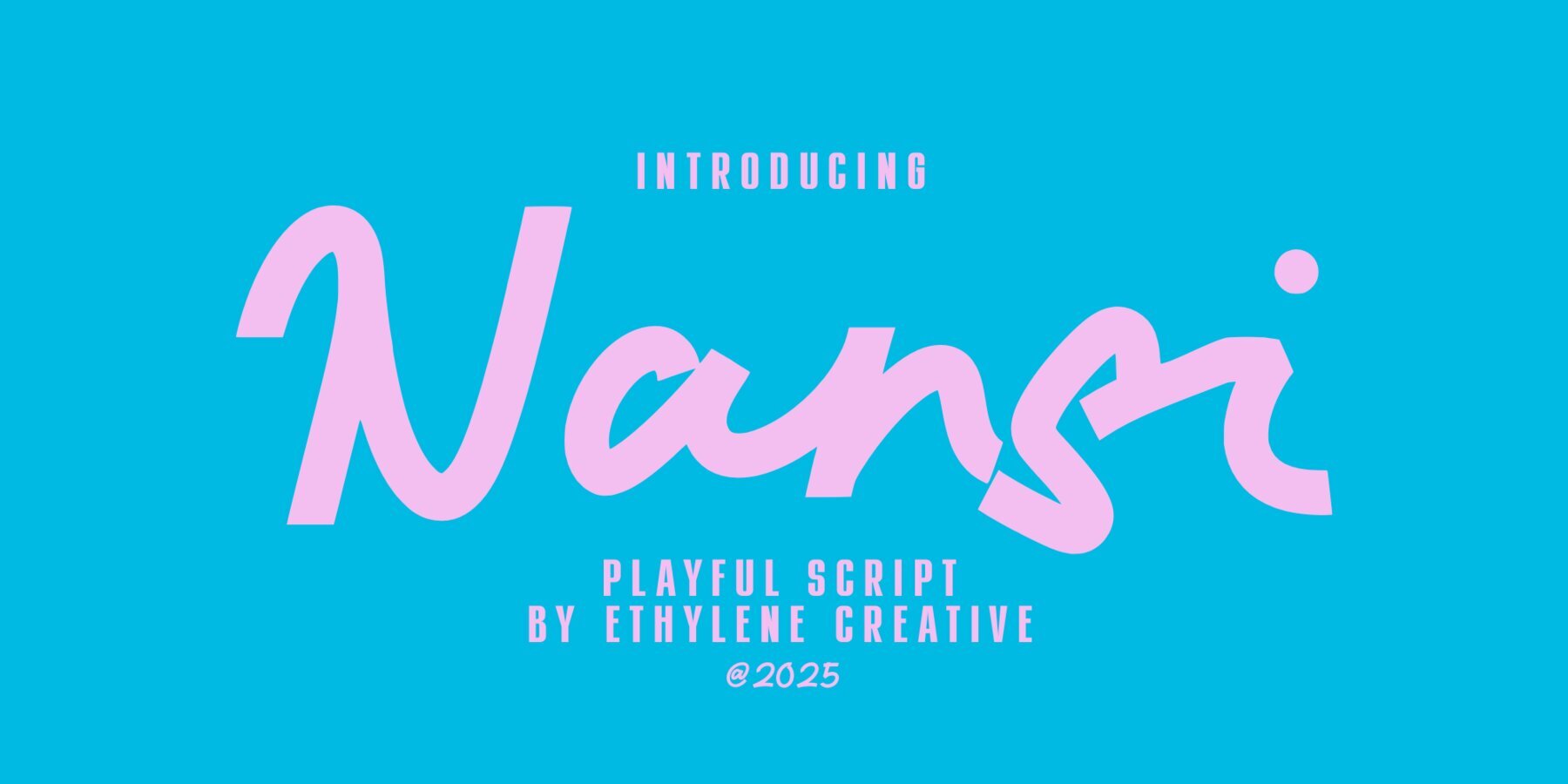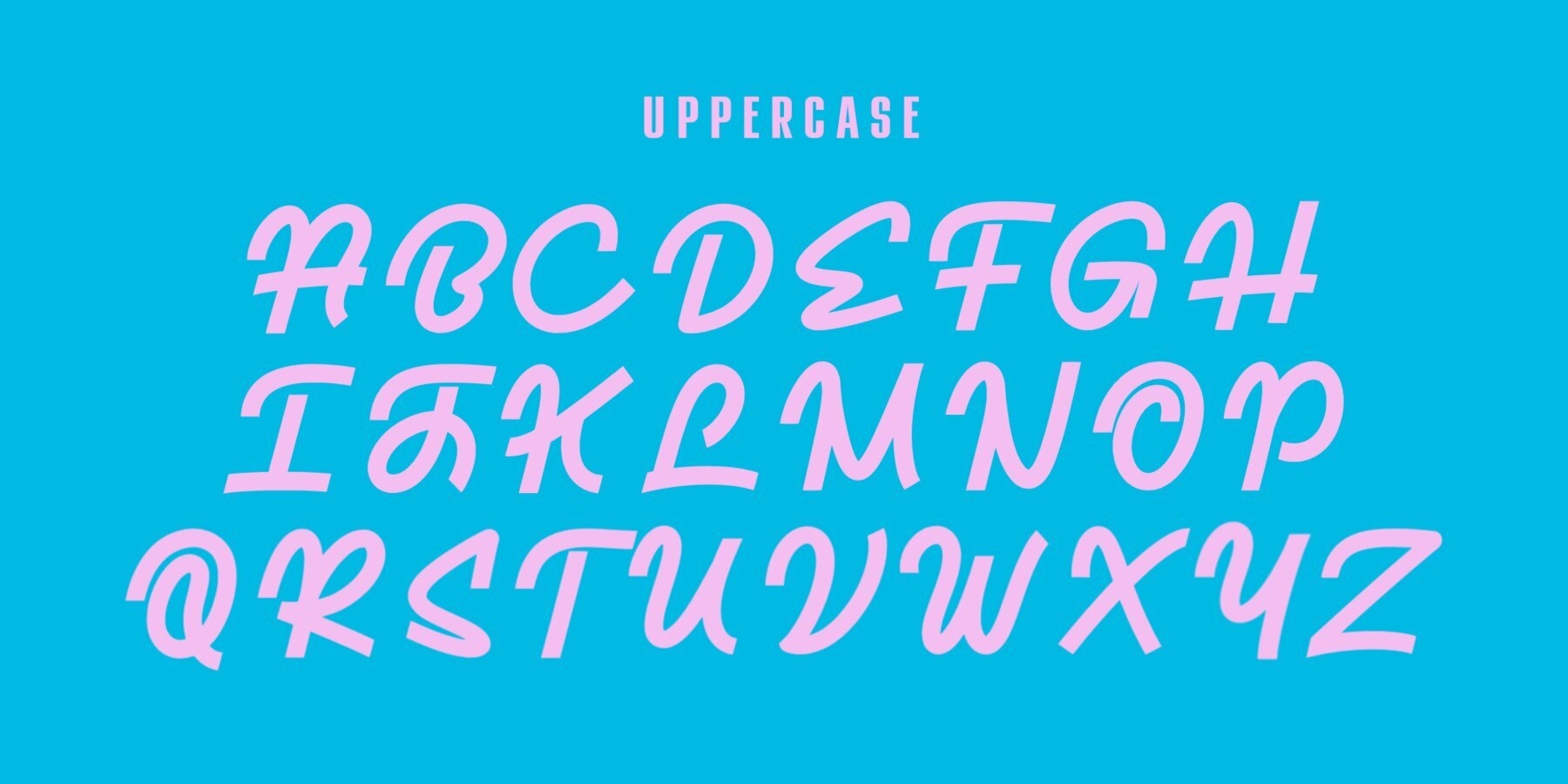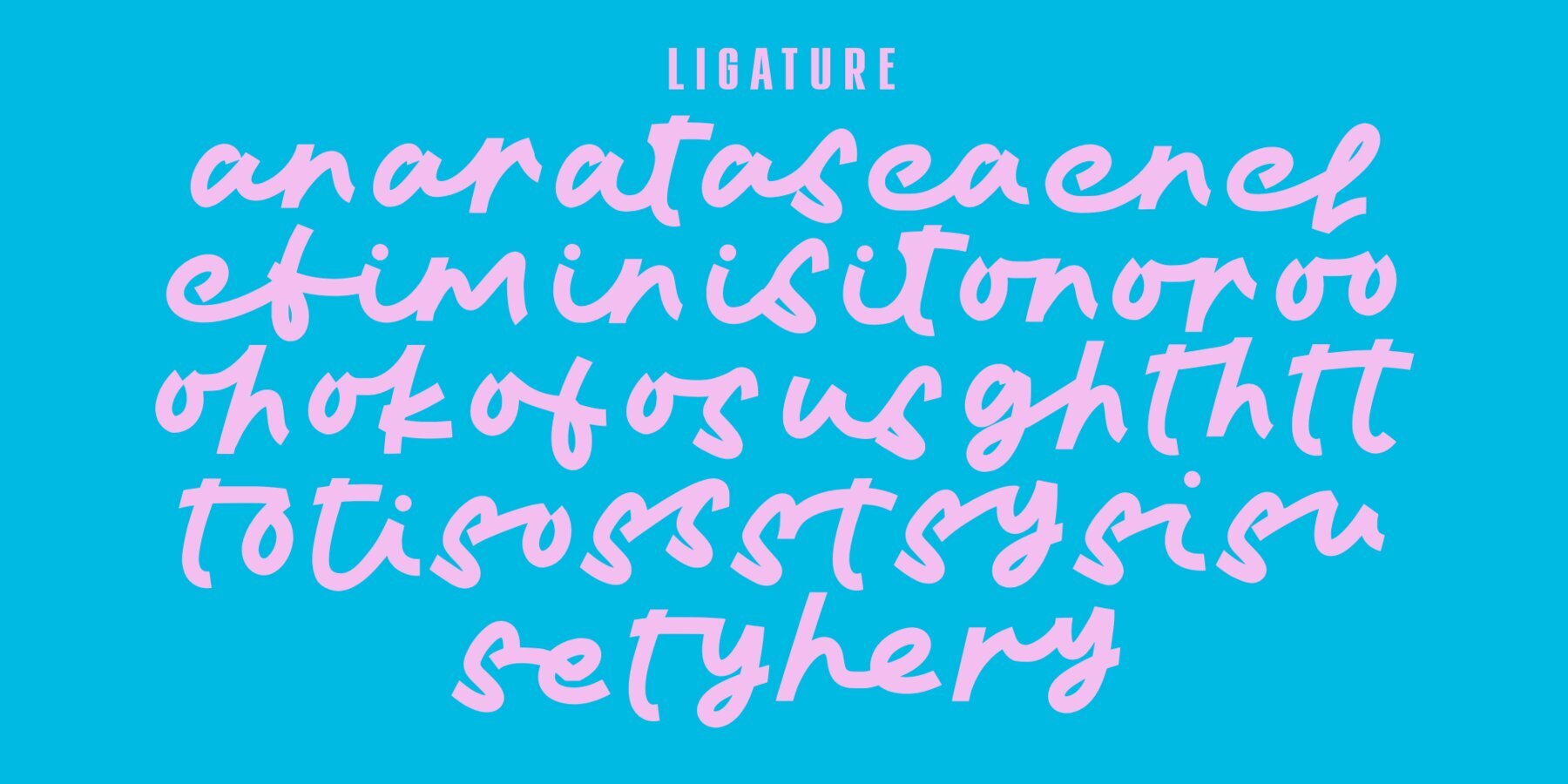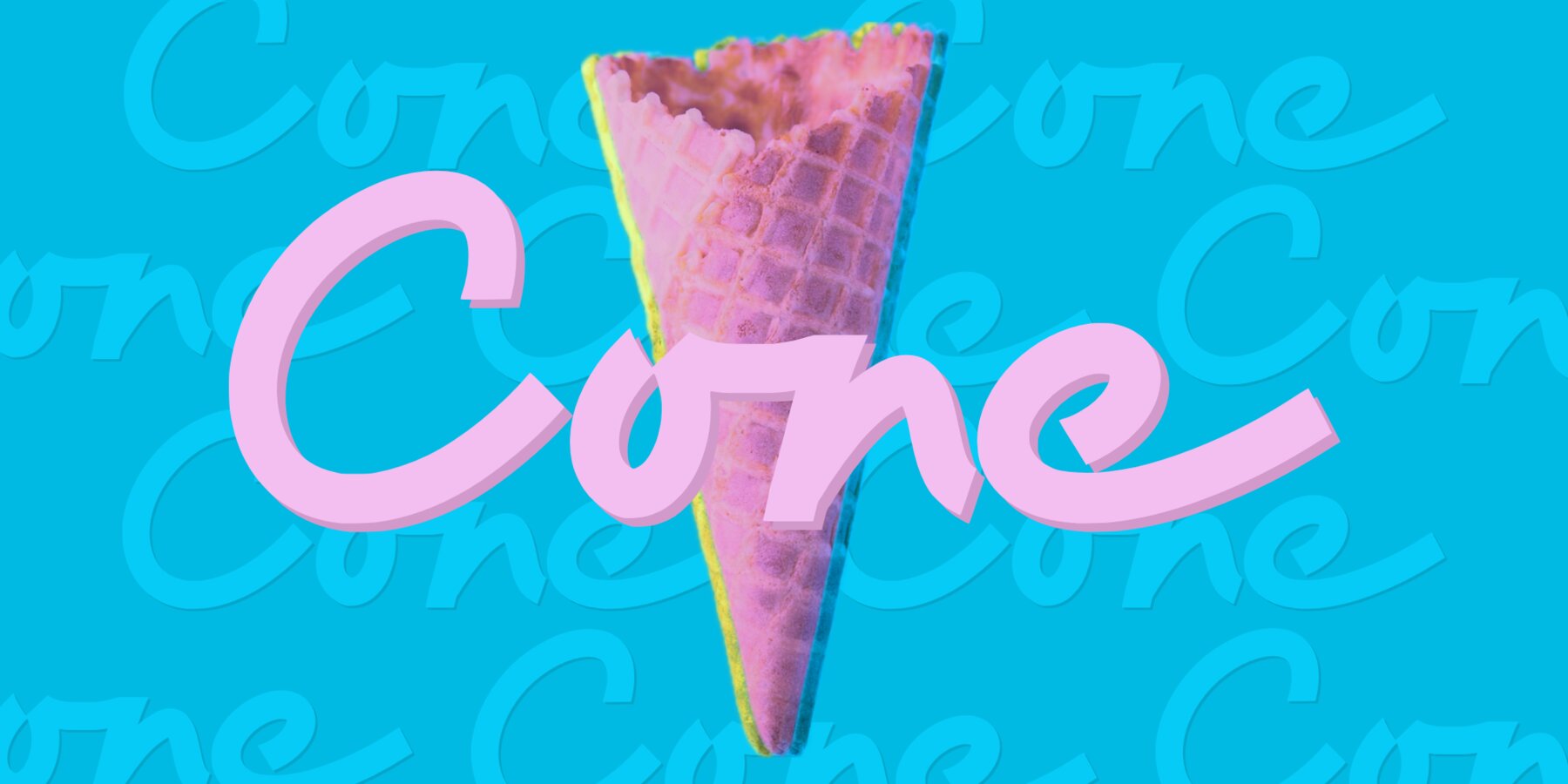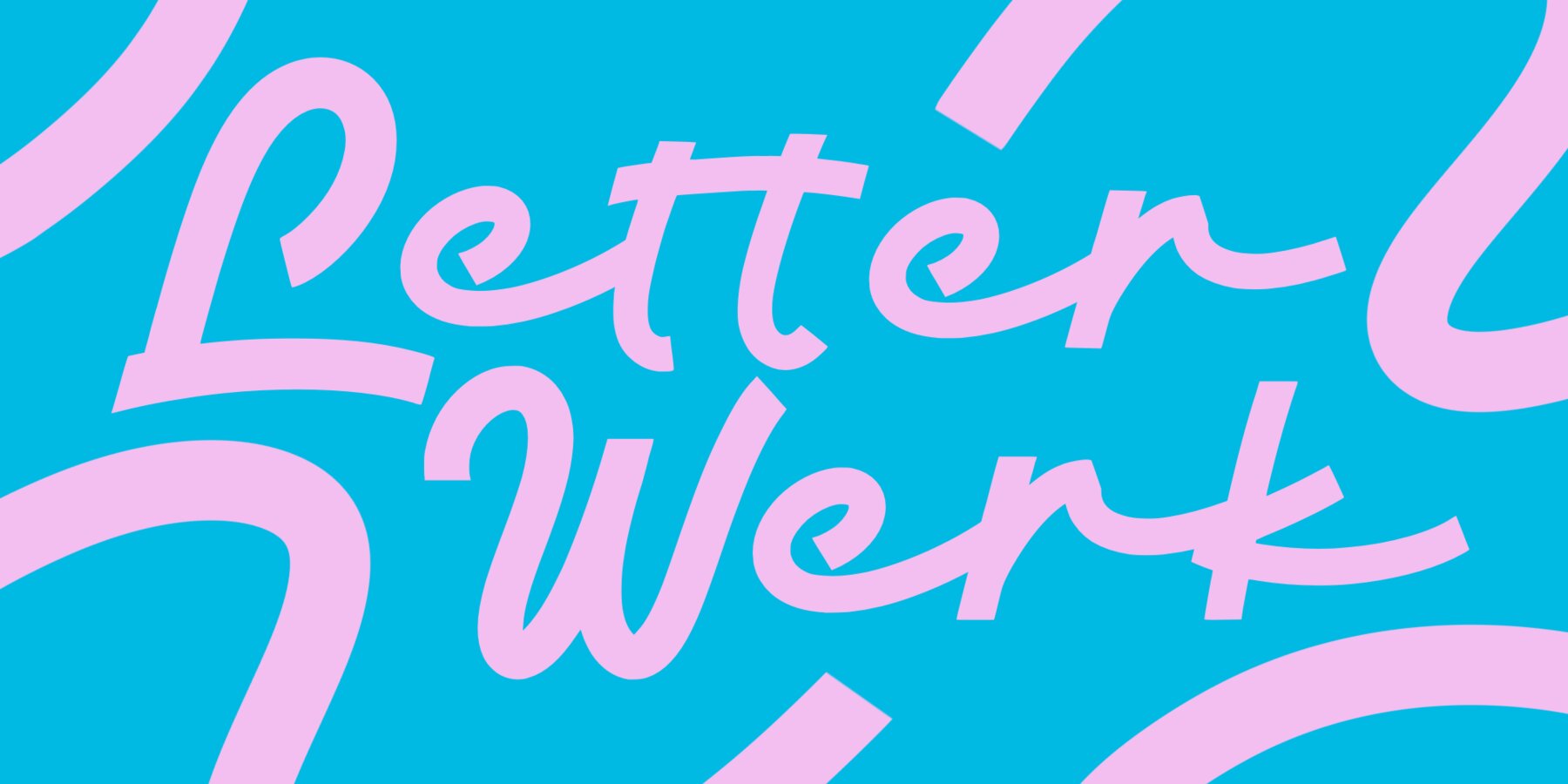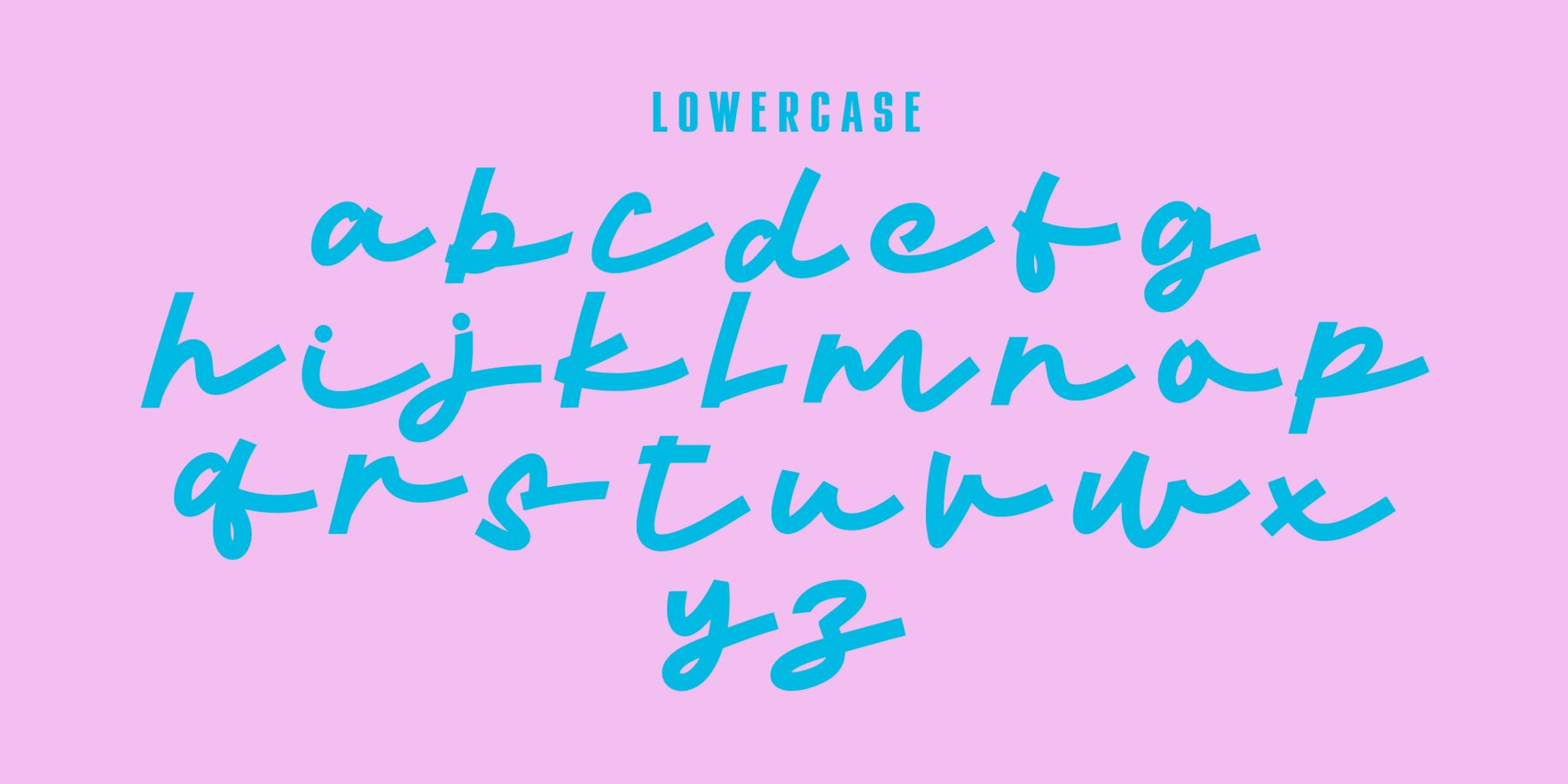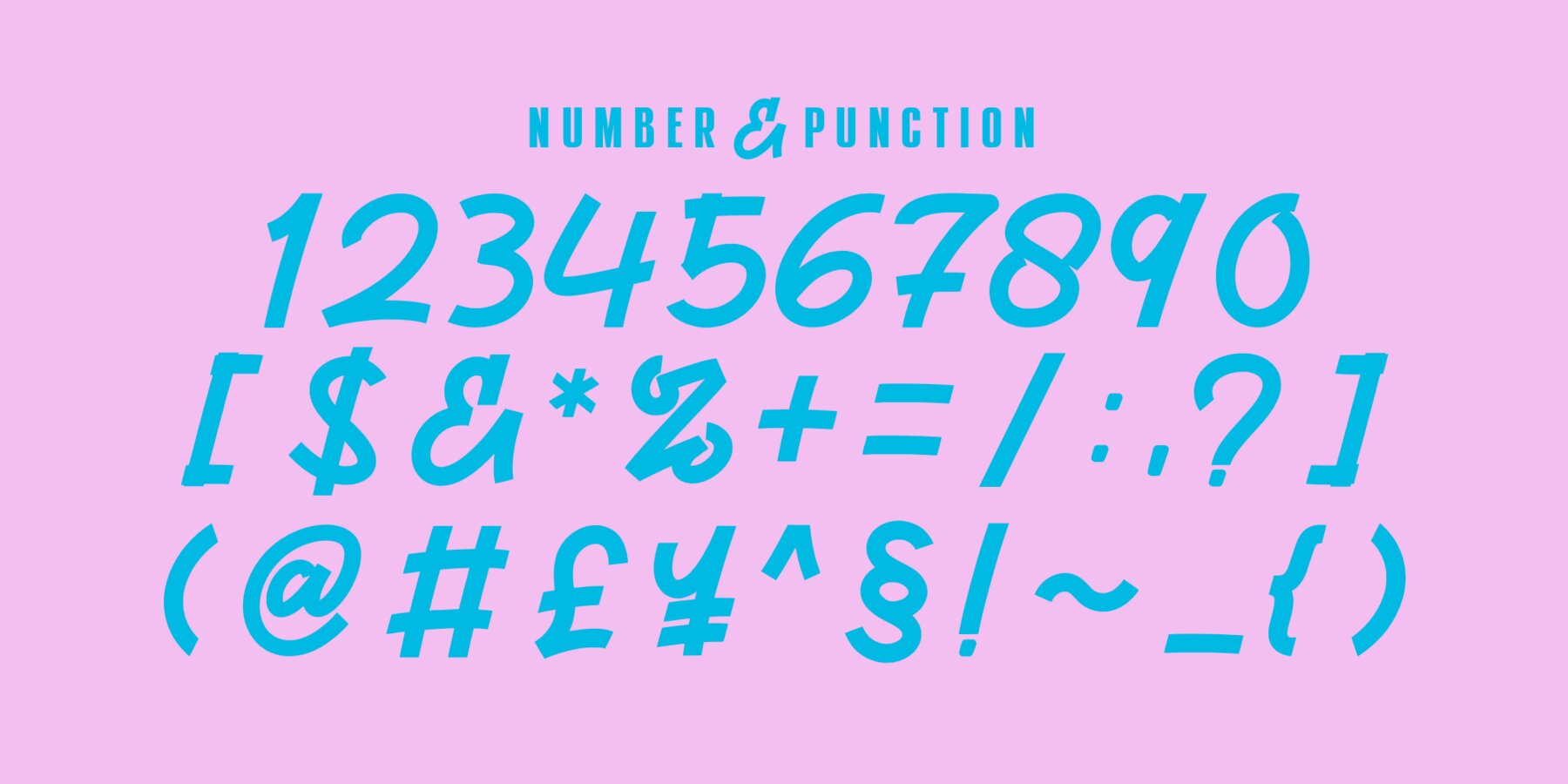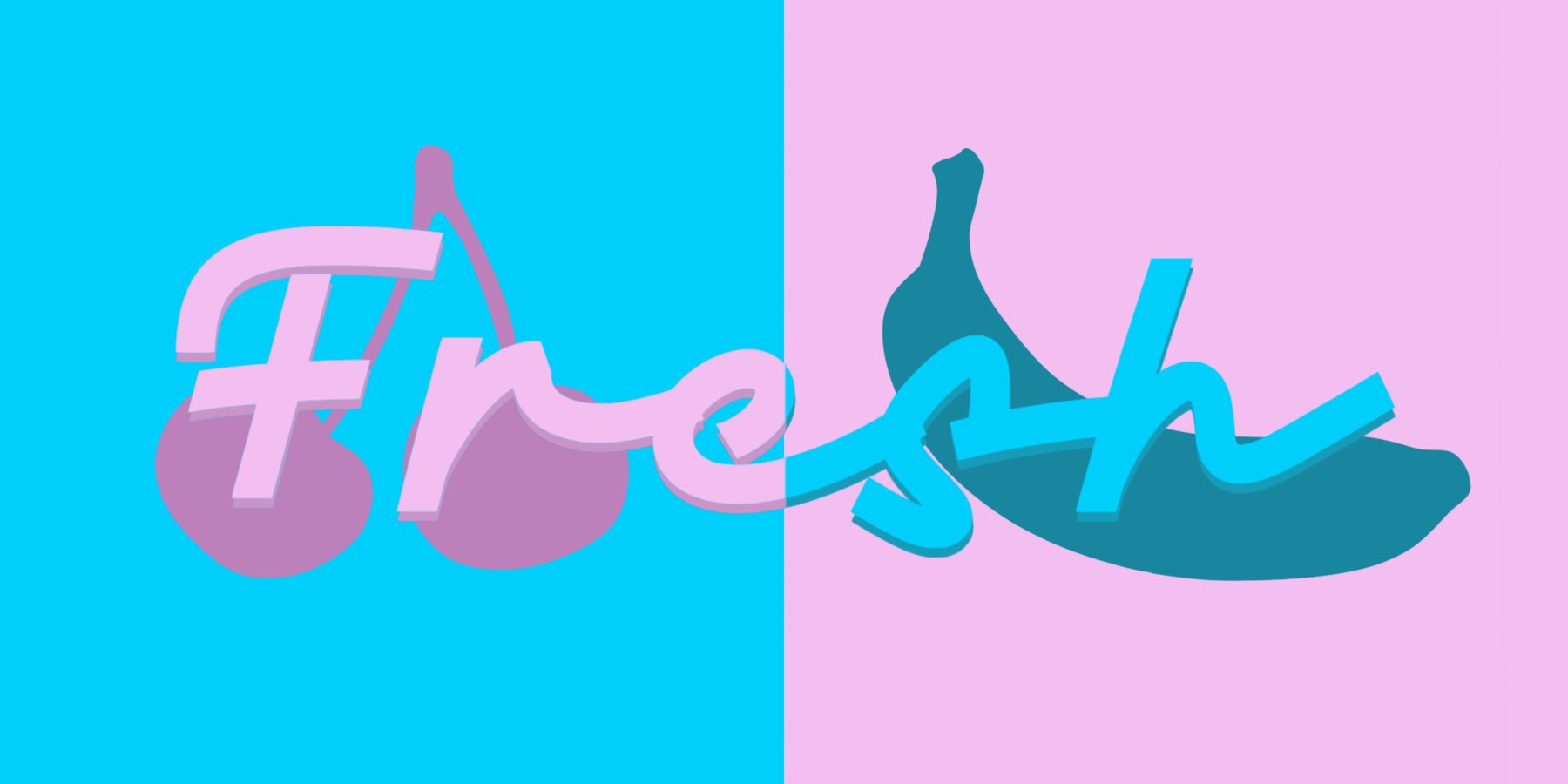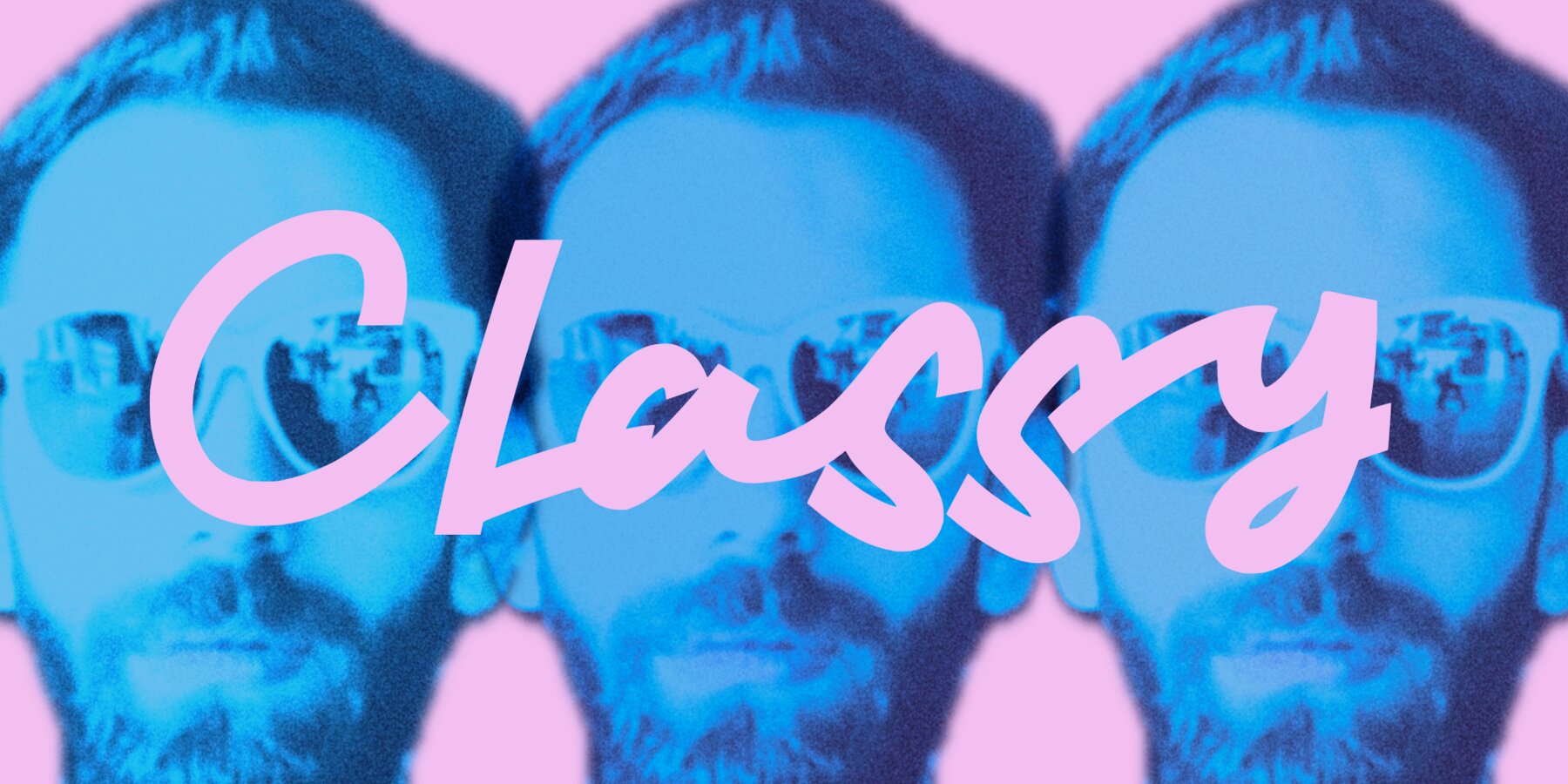
Nansi
Fonts have the power to evoke emotions, and Nansi is no exception. This typeface is ideal for those who want their designs to carry a personal narrative and charm. Inspired by bold handwritten strokes, Nansi captures the essence of communication with a unique personality. With abundant ligatures, Nansi creates natural, flowing letter combinations that make your message both elegant and approachable. Each detail is crafted meticulously, ensuring your content is delivered with grace. Features: Whether you're designing invitations, logos, or captivating branding, Nansi adds depth to your storytelling, making each letter count.Nansi: A Font With Genuine Character